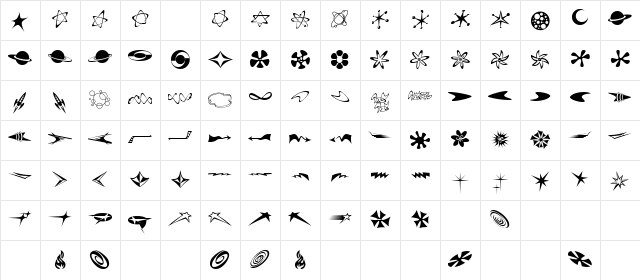
DooDads Regular Font Preview
DooDads Regular
Design Context for DooDads Typeface
DooDads is a composed and adaptable typeface that performs quietly and consistently across a wide range of design contexts.